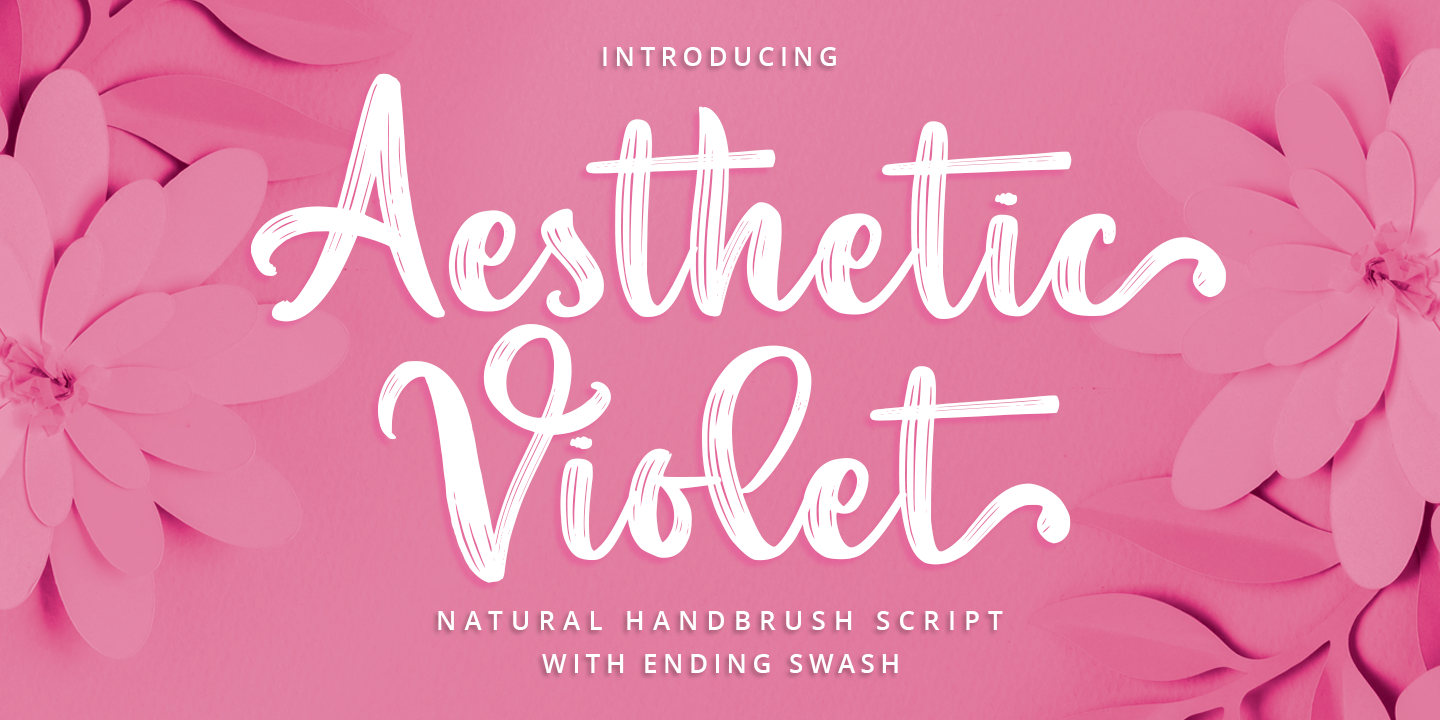
This elegant and stylish typeface is perfect for beauty branding, fashion magazines, social media graphics, event invitations, and lifestyle blogs. It adds a sophisticated yet modern vibe that instantly elevates any design.
What makes Aesthetic Violet Font so exciting is its sleek curves, balanced proportions, and subtle artistic flair. It captures the essence of contemporary elegance with a hint of mystery, making it ideal for projects that want to stand out with grace.
The Aesthetic Violet Font family includes multiple weights such as Regular, Bold, and Italic, offering versatility for headlines, body text, and decorative accents. It also features full multilingual support, numerals, and punctuation, ensuring smooth integration across platforms.